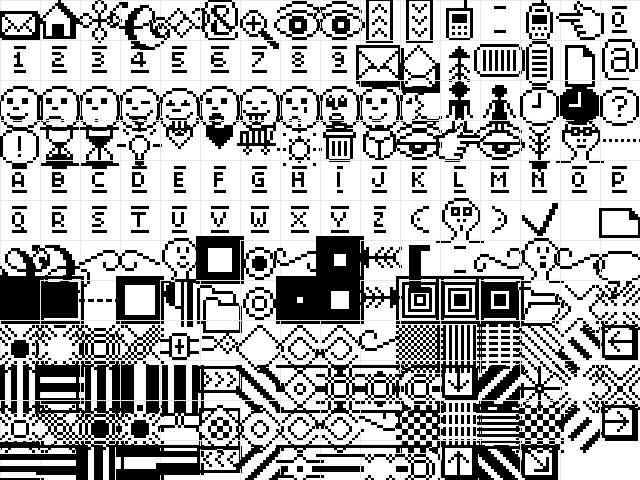
UF Mr. Pixel Tools Regular
Design Context for UF Mr. Pixel Tools Typeface
UF Mr. Pixel Tools celebrates the constraints of early digital type, turning pixel geometry into a distinctive and immediately recognisable style.
A natural choice for retro game titles, chiptune music branding, 8-bit UI, and digital nostalgia projects.